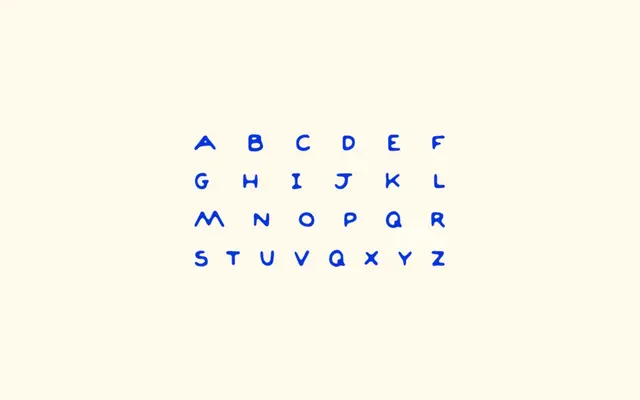
MC Merchant
A free display typeface from McLetters with a decorative serif character suited to headlines and short-form setting.
Released for free by McLetters, MC Merchant appears to be a single-weight display face designed for headline use. The page offers minimal detail about its origins or intended application, though the name and styling suggest a vintage or mercantile flavour. Available as a free download directly from the McLetters site.
The preview and name suggest a decorative display typeface with serif characteristics; limited page content prevents more precise classification.